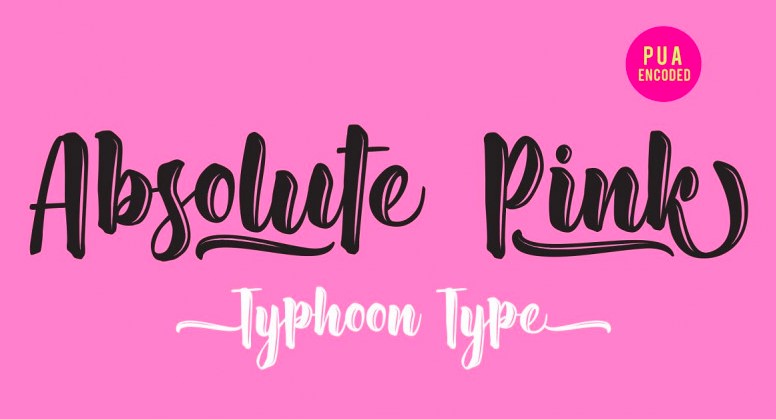
Today, you can get your hands on the fantastic Absolute Pink Script Font, a vintage brush typeface with exquisite qualities of scripted font. This font family comes in a zip format available for download in the download section. Don’t miss out on adding this unique typeface to your collection!
Now, the time is came to view the sample the of great typeface. Below, we shared an image that contains the glyphs and characters of this amazing font which creates best designs in Adobe photoshop and Adobe Illustrator.